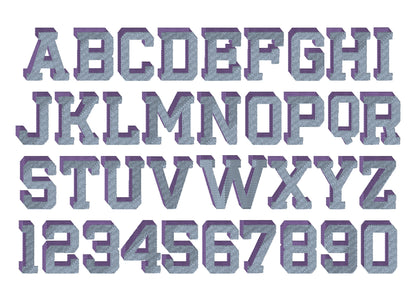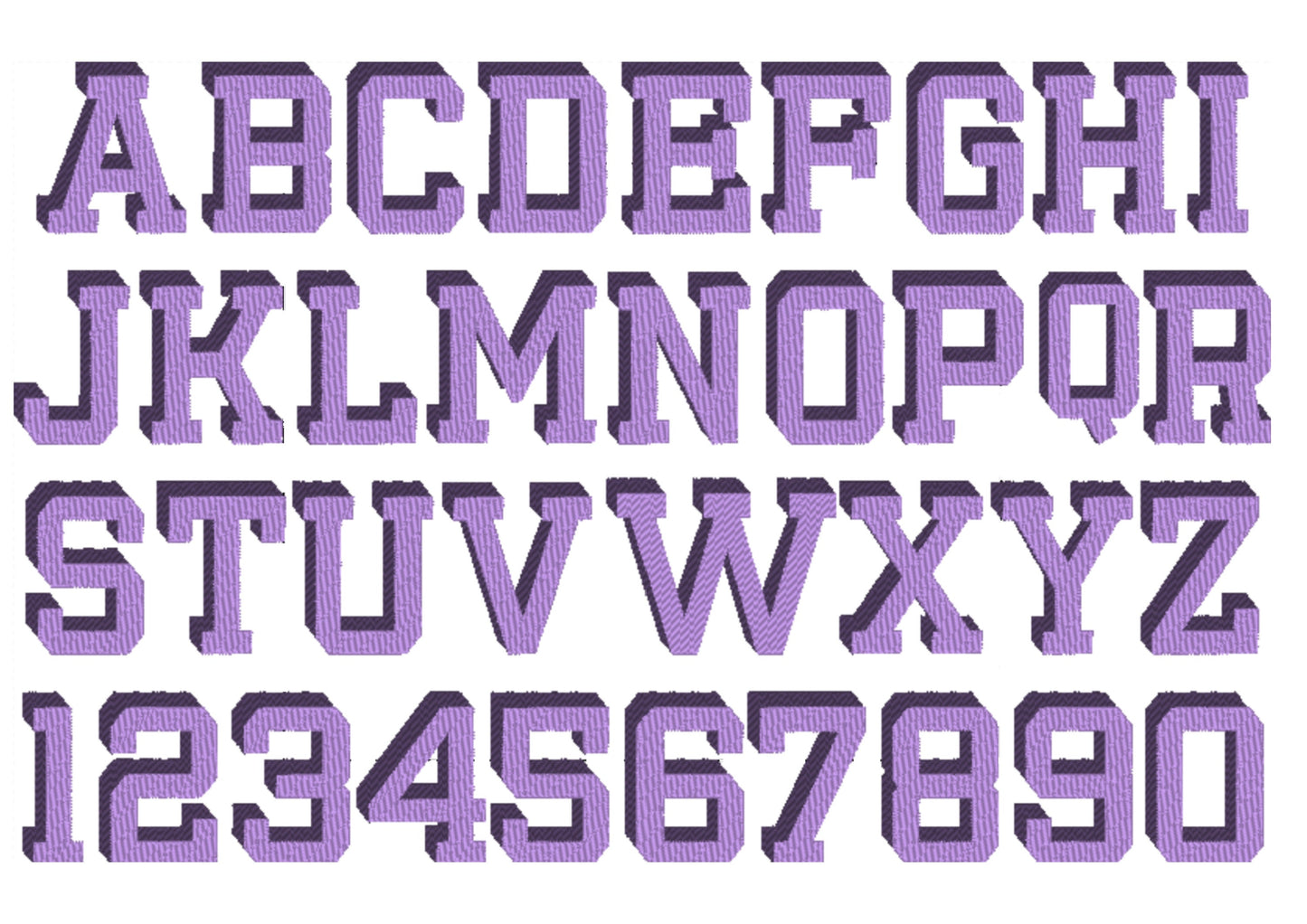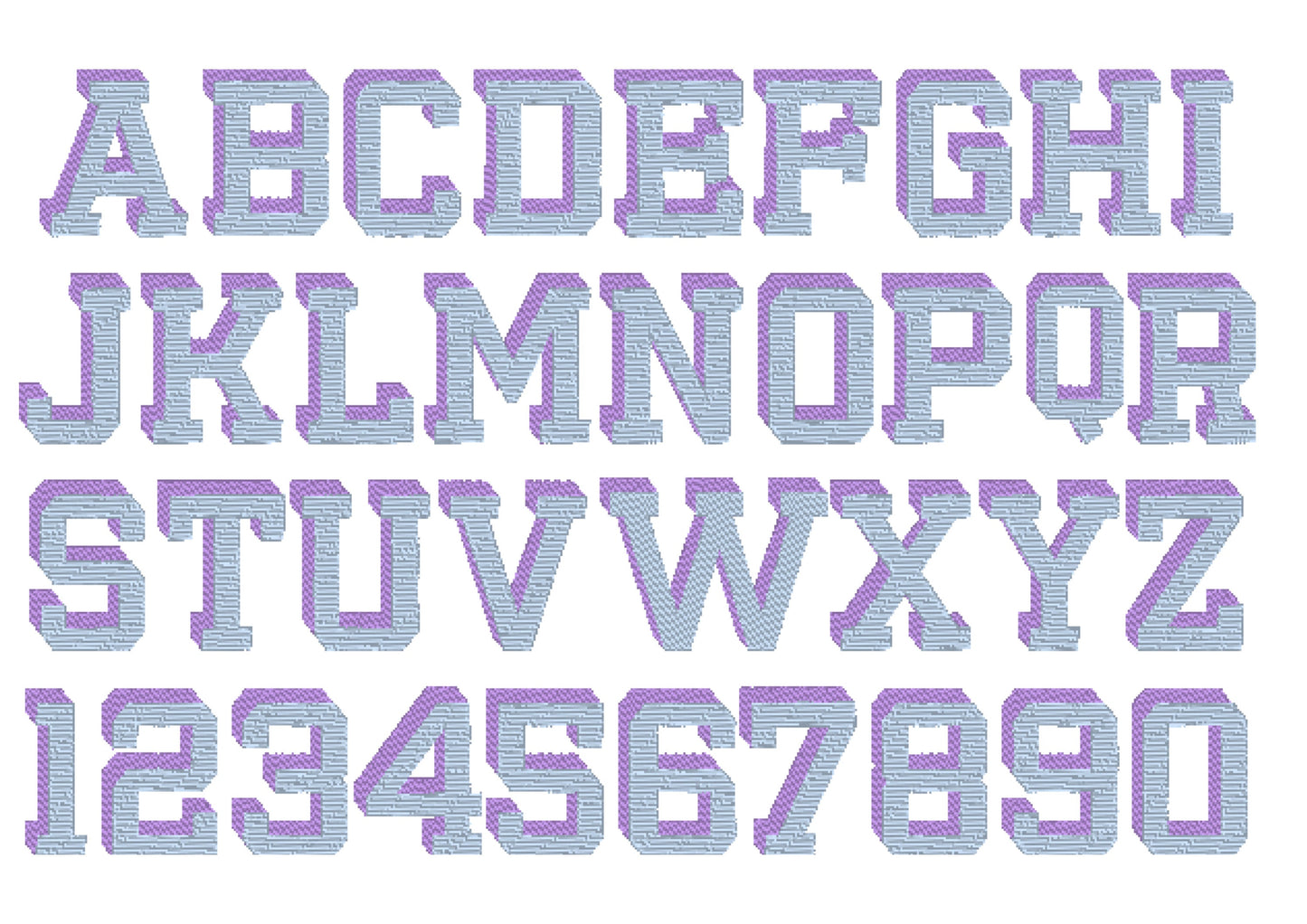
Or click to open the linkA big varsity collegiate block font with a drop shadow, in fill stitch, for bold team names and numbers on shirts and hoodies.
Uppercase A to Z and numbers 0 to 9, each with a drop shadow, in six sizes: 3, 3.5, 4, 4.5, 5 and 5.5 inches.